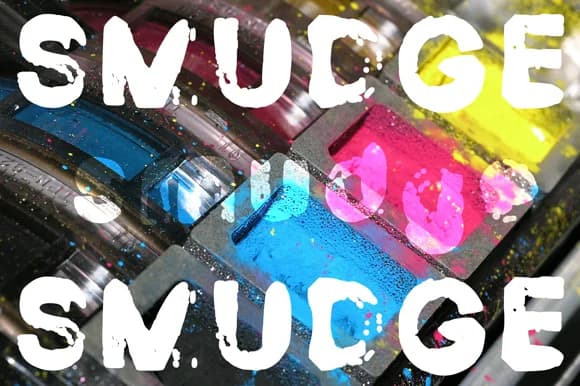
About Smudge Font
Smudge Font by GraphicsBam Fonts is a raw, ink-splattered brush script that captures the energetic imperfection of hand-painted lettering. With its deliberately rough edges, organic stroke variations, and weathered aesthetic, this typeface delivers authentic character for display work that demands visual impact and personality. The typeface's unpolished energy makes it stand out in a sea of perfectionist typefaces.
This font shines in contexts where controlled chaos works in your favor. Use it for vintage poster designs, graffiti-inspired artwork, gig poster compositions, and album cover lettering that needs genuine edge and attitude. The heavy brush strokes and intentionally unrefined aesthetic make it equally effective for skateboard graphic decals, tattoo design mockups, and streetwear brand labels seeking that handmade authenticity that mass-produced fonts simply cannot replicate. Whether you're creating vinyl record cover artwork or designing DIY street art, the typeface's painterly quality brings immediate visual interest and texture without requiring digital polish or refinement.
The font delivers excellent coverage for large-scale display applications, giving you bold, confident letterforms that command attention from any distance. Its organic imperfections become strengths rather than weaknesses, making each application feel uniquely custom-made. Discover what this unpredictable brush script can bring to your next project by adding Smudge Font to your Creative Fabrica collection.
Smudge Font is a script font that shines as a display or heading face. Pair it with a clean sans-serif or serif font for body text β the contrast creates a clear hierarchy while the two styles stay balanced and easy to read.